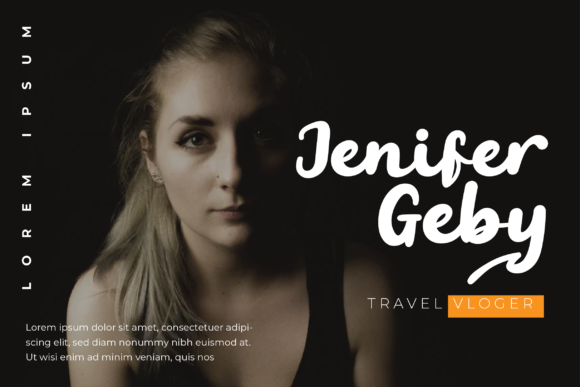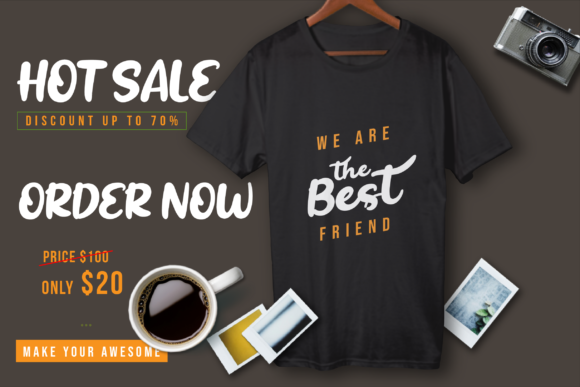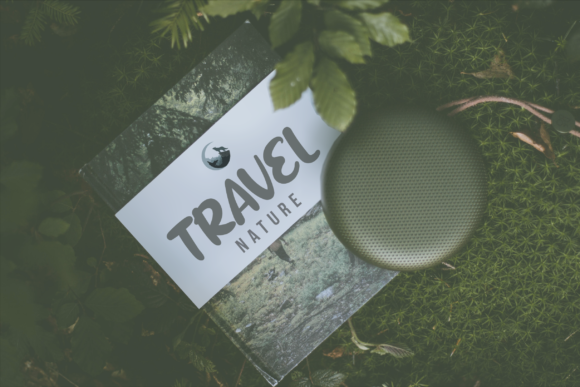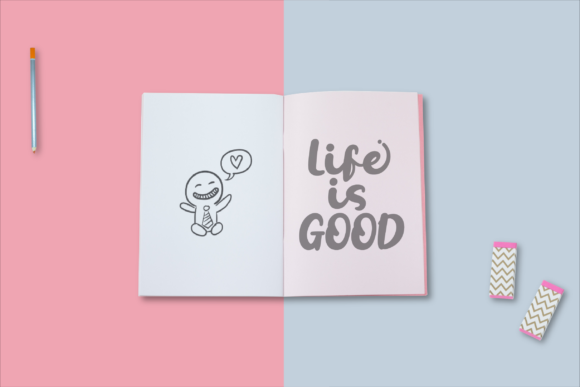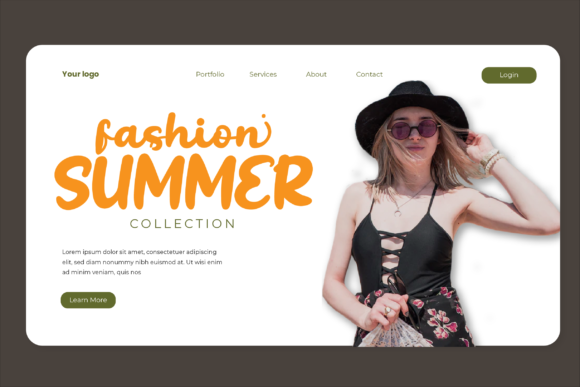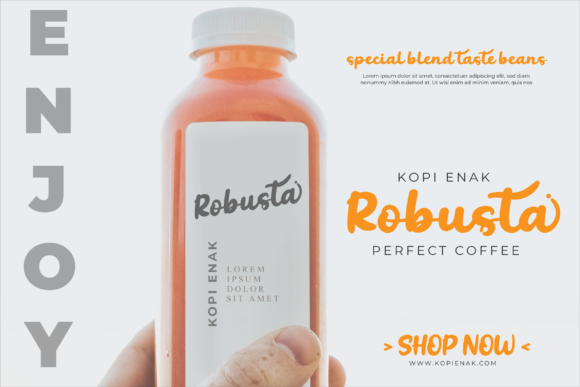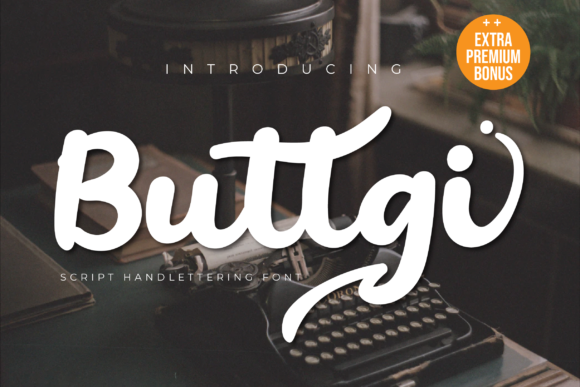
Introducing Buttgi Font: The Epitome of Elegance and Creativity
In the world of typography, fonts play a crucial role in conveying the tone and personality of a brand or design. For designers and crafters looking for a unique and elegant touch, Buttgi Font is an excellent choice. This beautiful, handwritten font is designed to add a touch of sophistication and style to any creative project.
What is Buttgi Font?
Buttgi is a flowing, thick lettered handwritten font, created with original hand-drawn strokes. Its relaxed and elegant feel, combined with a beautiful typographic harmony, makes it the perfect choice for each of your creative ideas. Whether you’re working on a branding project, crafting a logo, or designing a poster, Buttgi Font is sure to impress.
Key Features of Buttgi Font
• Hand-drawn strokes: Each letter in Buttgi Font is carefully crafted with original hand-drawn strokes, giving it a unique and personal touch.
• Relaxed and elegant feel: The font’s flowing and thick lettered design creates a sense of relaxation and elegance, perfect for designs that require a touch of sophistication.
• Beautiful typographic harmony: Buttgi Font is designed to create a beautiful harmony between letters, making it easy to read and visually appealing.
Use Cases for Buttgi Font
Buttgi Font is versatile and can be used in a variety of creative projects, including:
• Branding and logos: Create a unique and memorable brand identity with Buttgi Font.
• Posters and flyers: Add a touch of elegance to your posters and flyers with this beautiful font.
• Wedding and event designs: Buttgi Font is perfect for creating romantic and sophisticated wedding and event designs.
• Packaging and product design: Use Buttgi Font to add a touch of personality to your packaging and product designs.
Why Choose Buttgi Font?
With so many fonts available, why choose Buttgi Font? Here are a few reasons:
• Unique and original: Buttgi Font is a one-of-a-kind font that will set your designs apart from the rest.
• Elegant and sophisticated: This font is perfect for designs that require a touch of elegance and sophistication.
• Easy to read: Despite its unique design, Buttgi Font is easy to read and understand.
Tips for Using Buttgi Font
To get the most out of Buttgi Font, here are a few tips:
• Use it sparingly: Buttgi Font is a statement font, so use it sparingly to make a bigger impact.
• Pair it with other fonts: Experiment with pairing Buttgi Font with other fonts to create a unique and interesting design.
• Adjust the size and color: Play around with different sizes and colors to find the perfect combination for your design.
In conclusion, Buttgi Font is a beautiful and elegant handwritten font that is perfect for designers and crafters looking to add a touch of sophistication to their creative projects. With its unique and original design, relaxed and elegant feel, and beautiful typographic harmony, Buttgi Font is sure to impress. Whether you’re working on a branding project, crafting a logo, or designing a poster, Buttgi Font is an excellent choice.